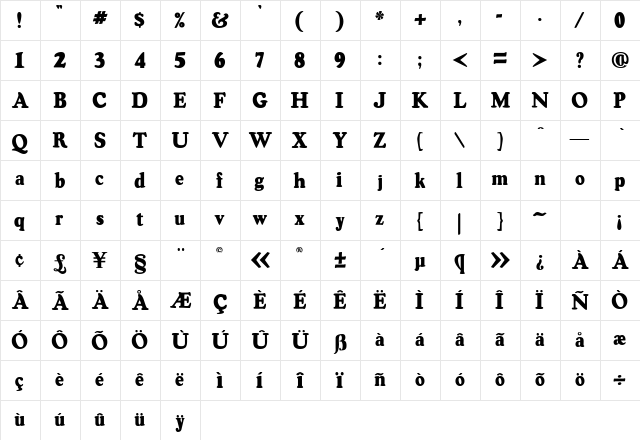
BeaconSSK Bold
Design Context for BeaconSSK Typeface
BeaconSSK offers clean, dependable letterforms without strong stylistic allegiance, making it a practical choice for designers who need flexibility. Its bold stroke weight gives it real presence on the page.
Pro Tip: Pair BeaconSSK with a font of contrasting weight or personality to build a more expressive typographic hierarchy.